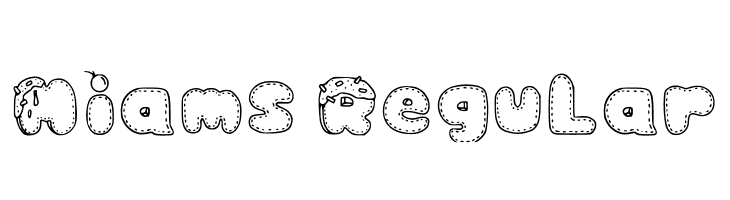
A bold, playful font with rounded, cartoonish characters.
A bold, playful font with a 3D effect and cartoonish style.
A bold, playful font with a cartoonish and exaggerated style.
Whimsical, cartoonish decorative font.
Playful, bold outline font with a cartoonish style.
Bold, playful cartoonish font.
Bold, playful, and cartoonish font.
Bold, playful, hand-drawn display font with cartoonish style.
Bold, bubbly display font with playful, cartoonish style.
A bold, dynamic font with exaggerated, swollen strokes and playful, cartoonish shapes.